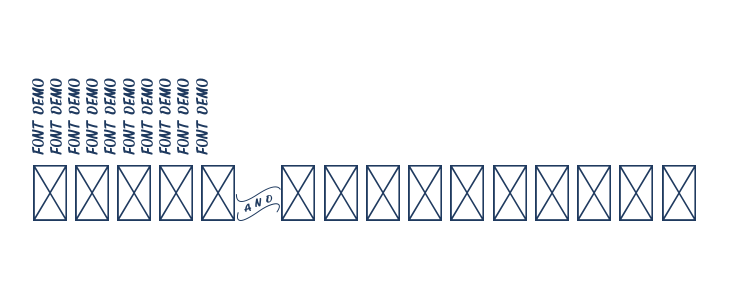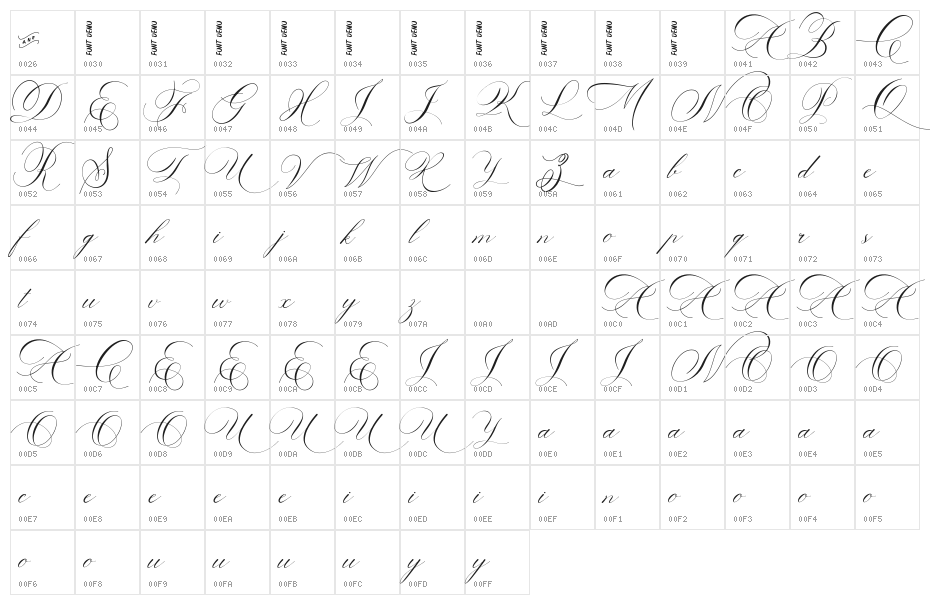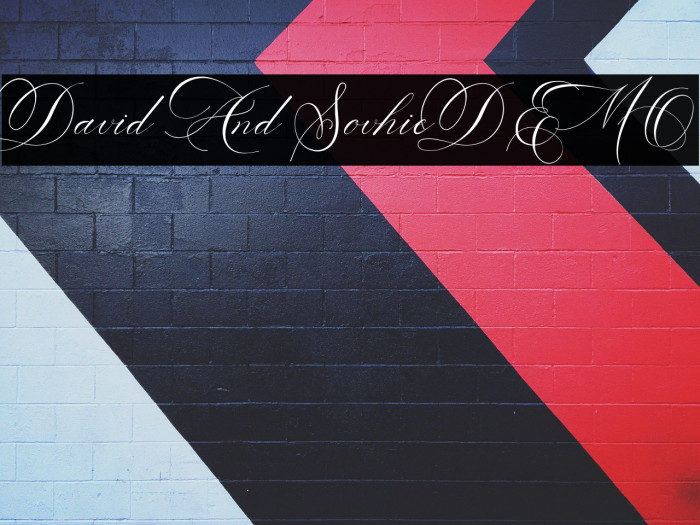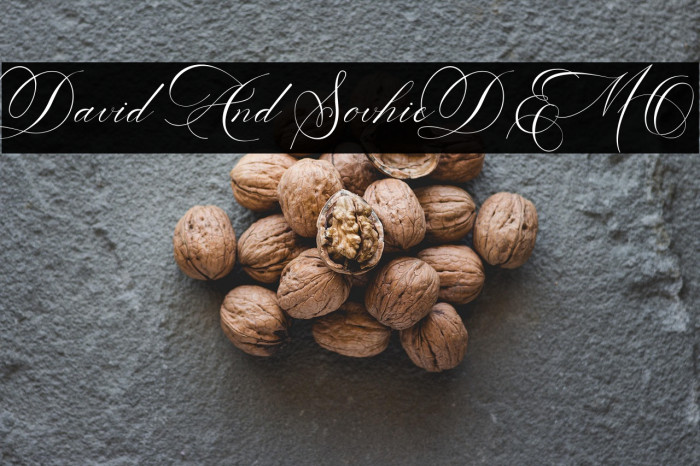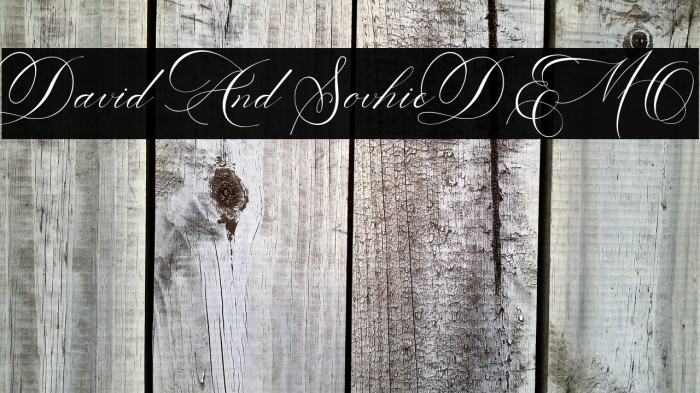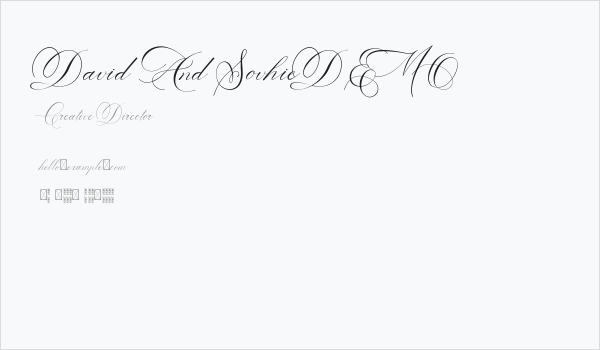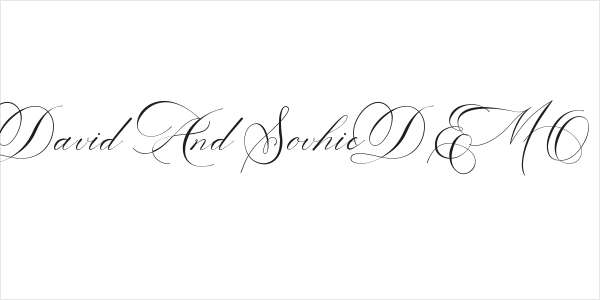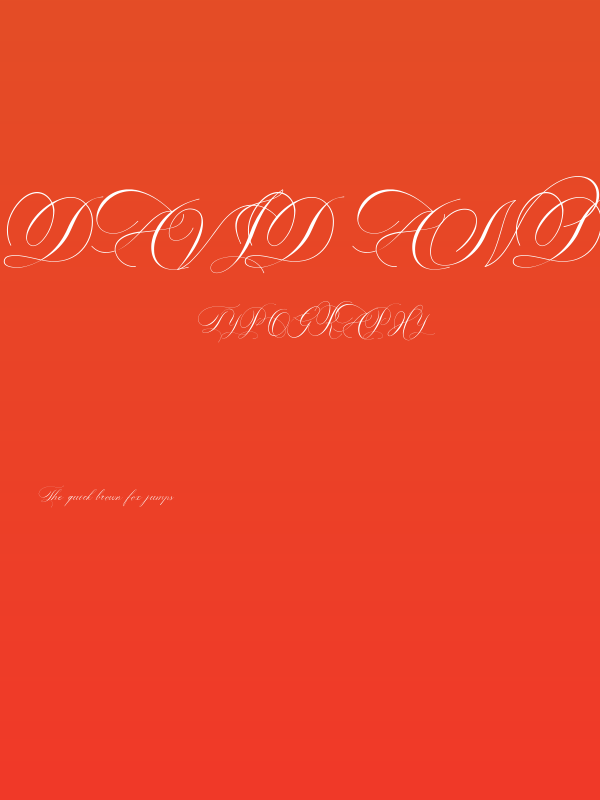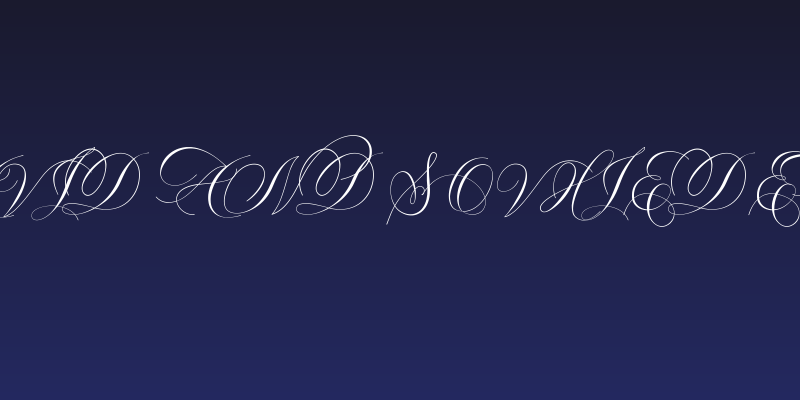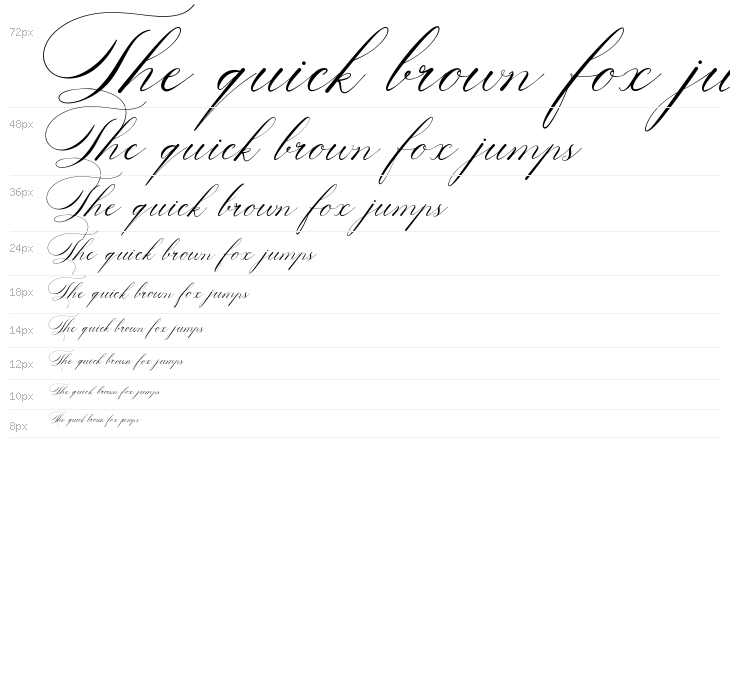
David And SovhieDEMO Font
David And SovhieDEMO Description
This elegant script font features intricate and flowing letterforms that exude sophistication and grace. The uppercase letters are adorned with elaborate swashes and flourishes, creating a sense of grandeur and formality. The lowercase letters maintain a smooth and fluid style, complementing the ornate capitals. The font's overall design is reminiscent of traditional calligraphy, with a modern twist that makes it suitable for contemporary applications. The characters are well-spaced, allowing for readability while maintaining the decorative nature of the script. This font is perfect for projects that require a touch of elegance and refinement.
| Overall Style | Elegant, Decorative |
| Use Case | Logos, Invitations, Headlines |
| Proposed Projects | Wedding invitations, luxury branding, elegant stationery, formal event programs. |